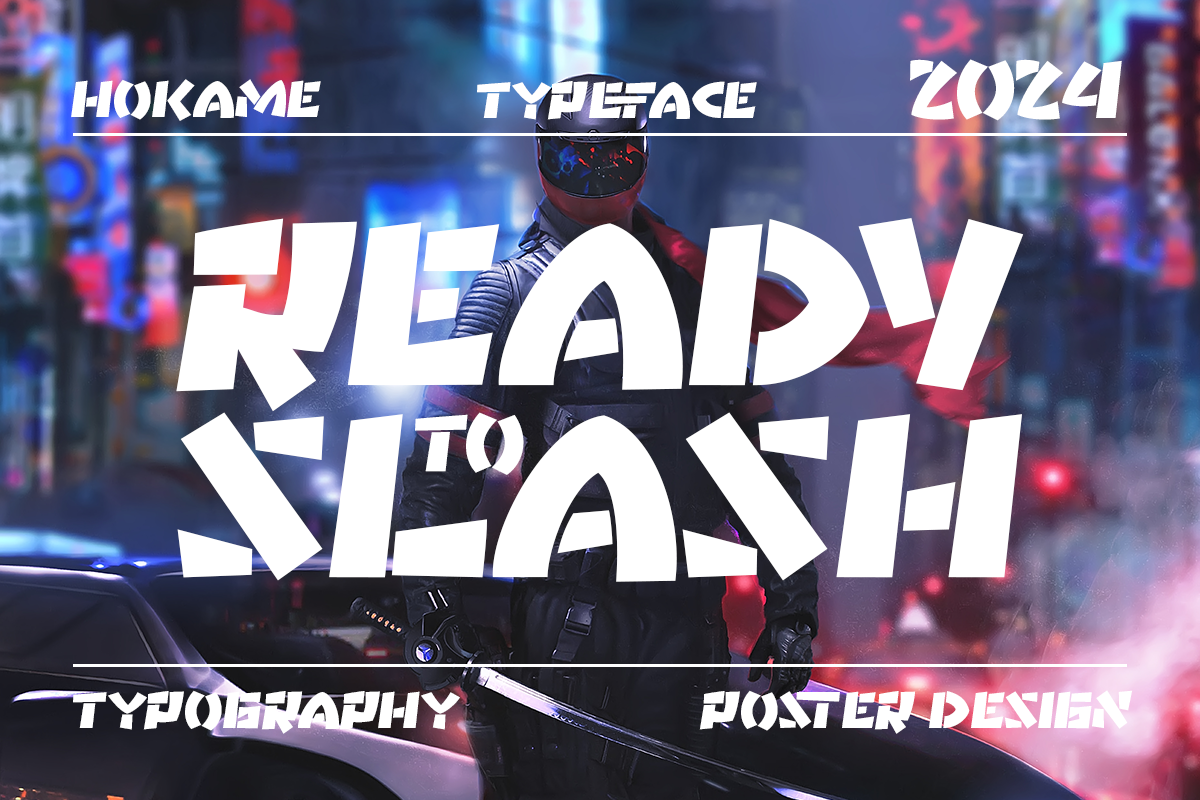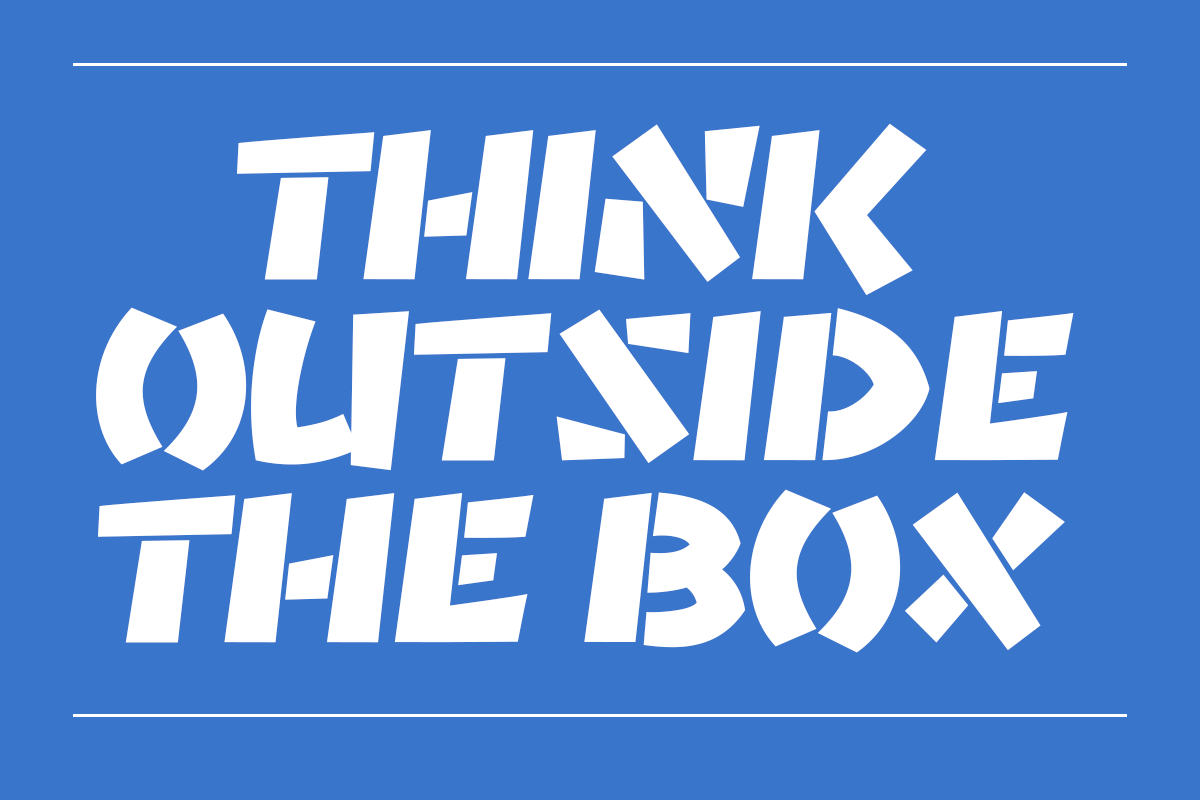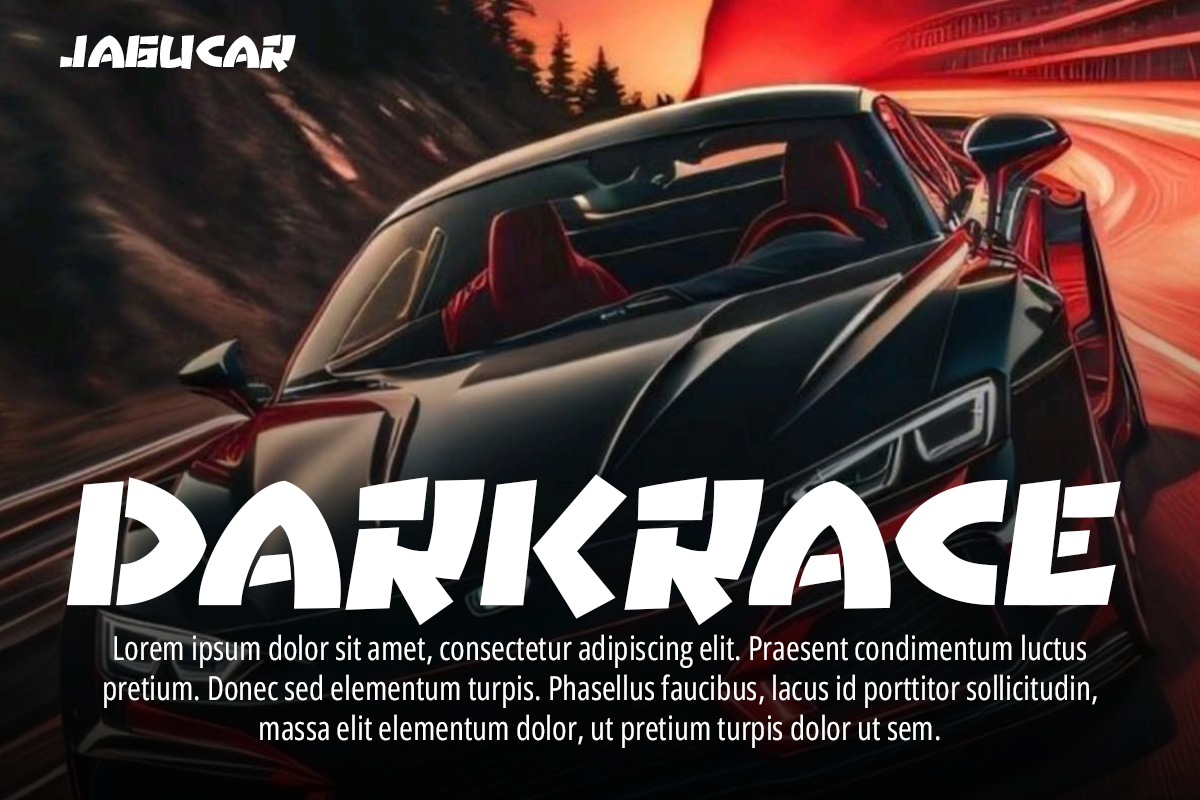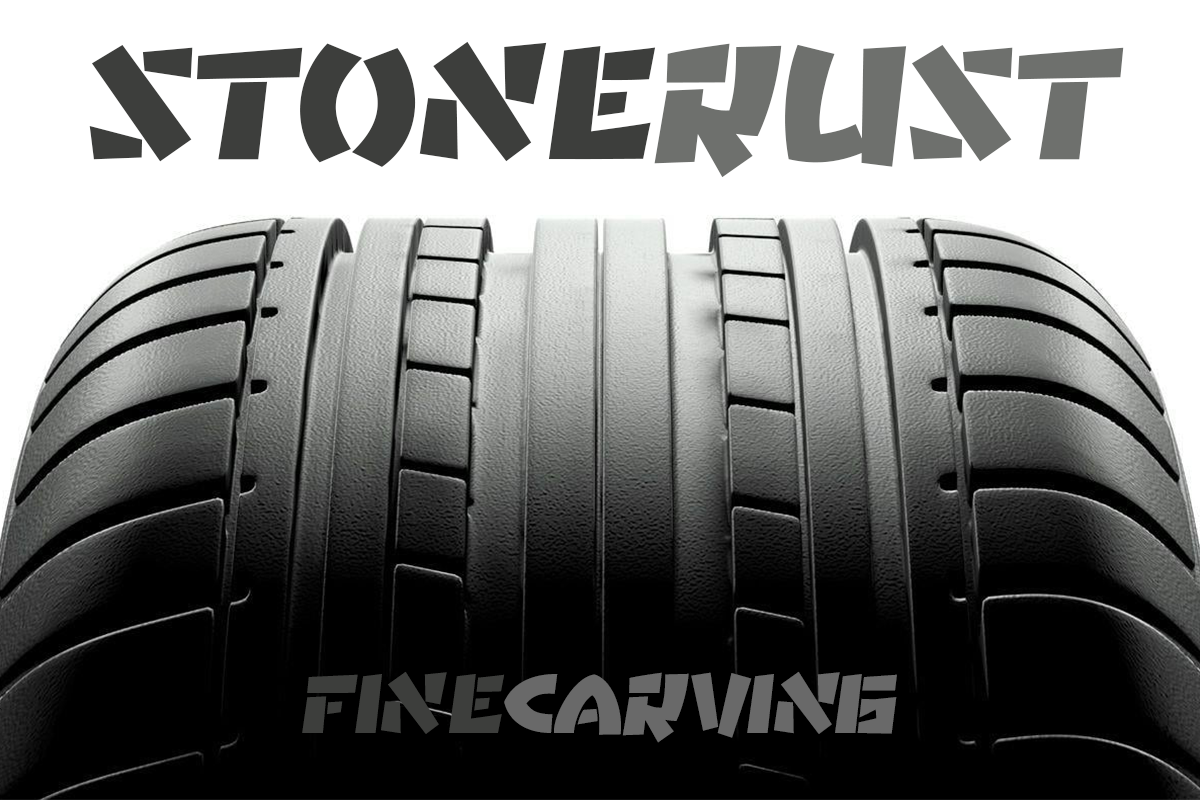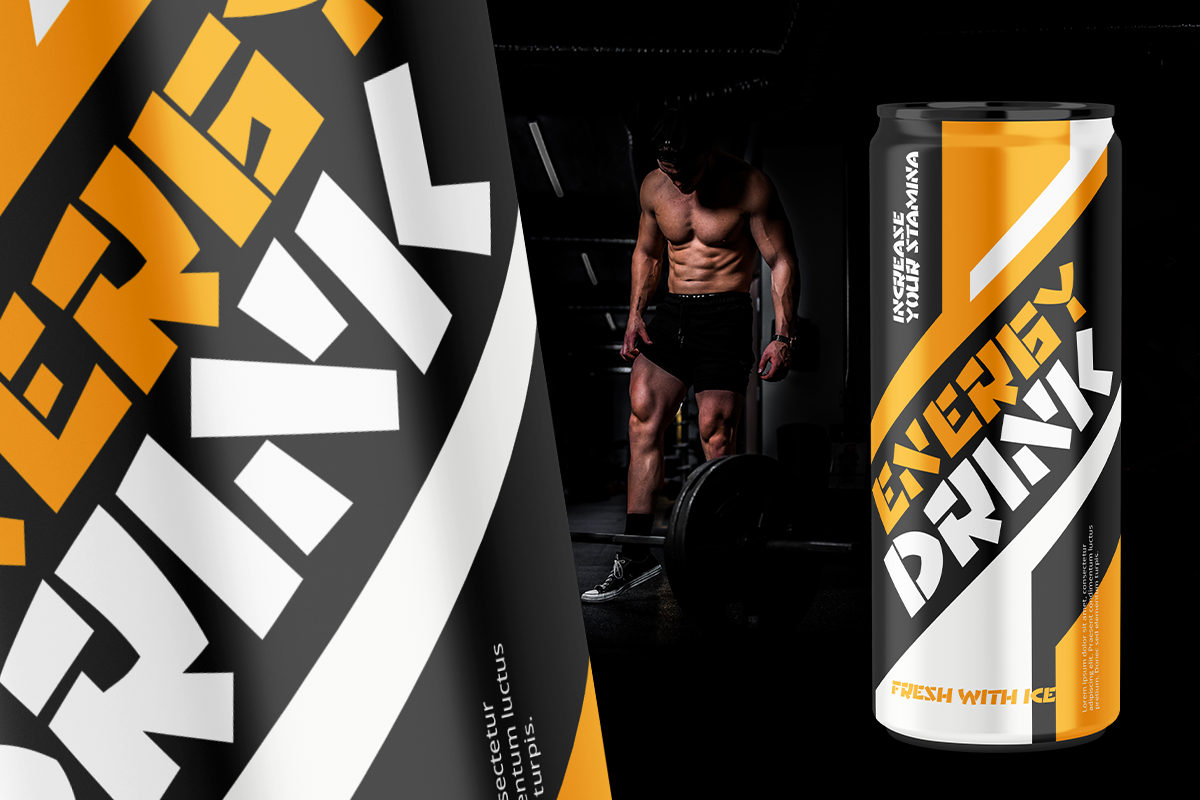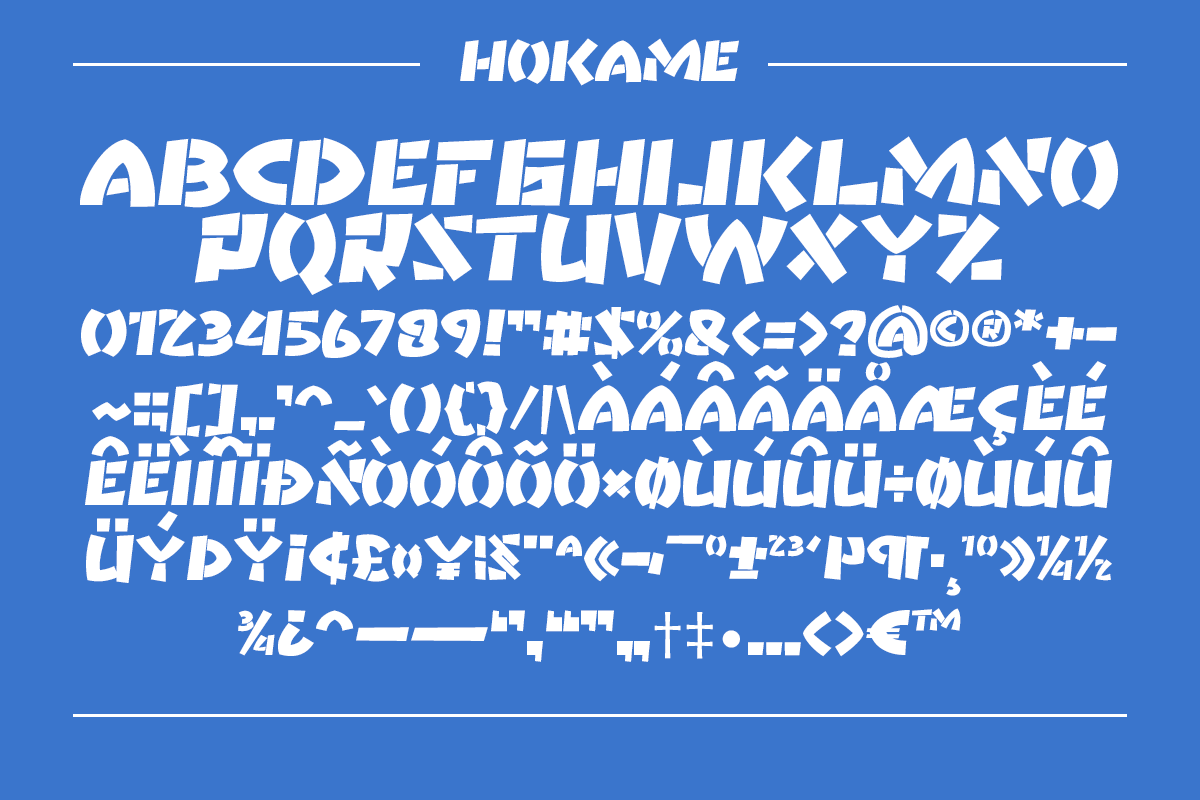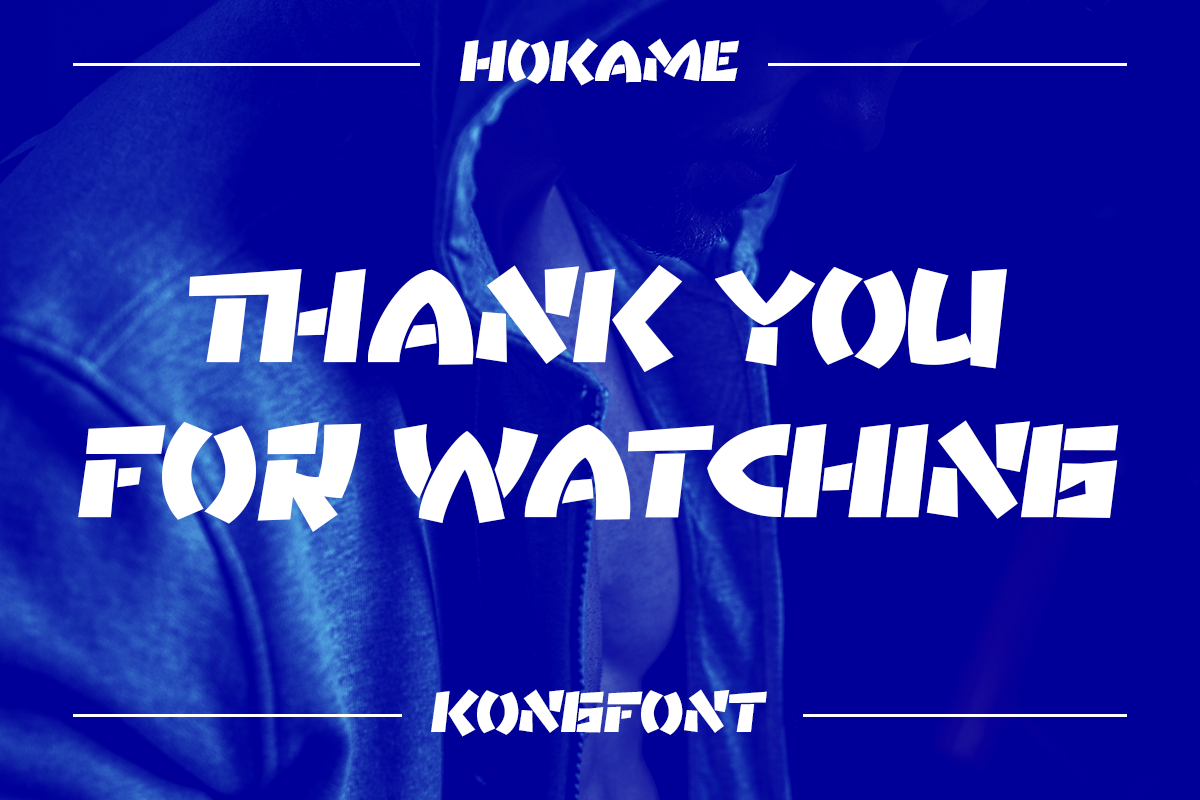
Hokame Unique Display Font The Display font type, Hokame Unique Display Font features strong modern font elements. Each letter of this font is not easy to distinguish. The letters in this font resemble streams of light designed to look modern, futuristic, and mechanical. This type of font is the best for projects using themes of games, future technology, space travel, and visual reality. This font can be used as a digital font, such as on the web, video, and other displays, and as a printed font on posters, banners, and book covers. Hokame Unique Display Font can use on the covers of tech books and magazines. Hokame Unique Display Font is not suitable for writing newspapers, magazines, or articles on the web. This font is better used for writing short sentences or words because it will look cool and modern. Our display fonts collection is compatible to use as; Figma fonts, Canva fonts, Freepik Fonts, and Adobe Fonts. They also work as Windows Fonts and Apple Fonts. For your social media needs, you can use and install fonts in our collection of Espot & Futuristic fonts to use as Instagram Fonts, Facebook Fonts, and Twitter Fonts.